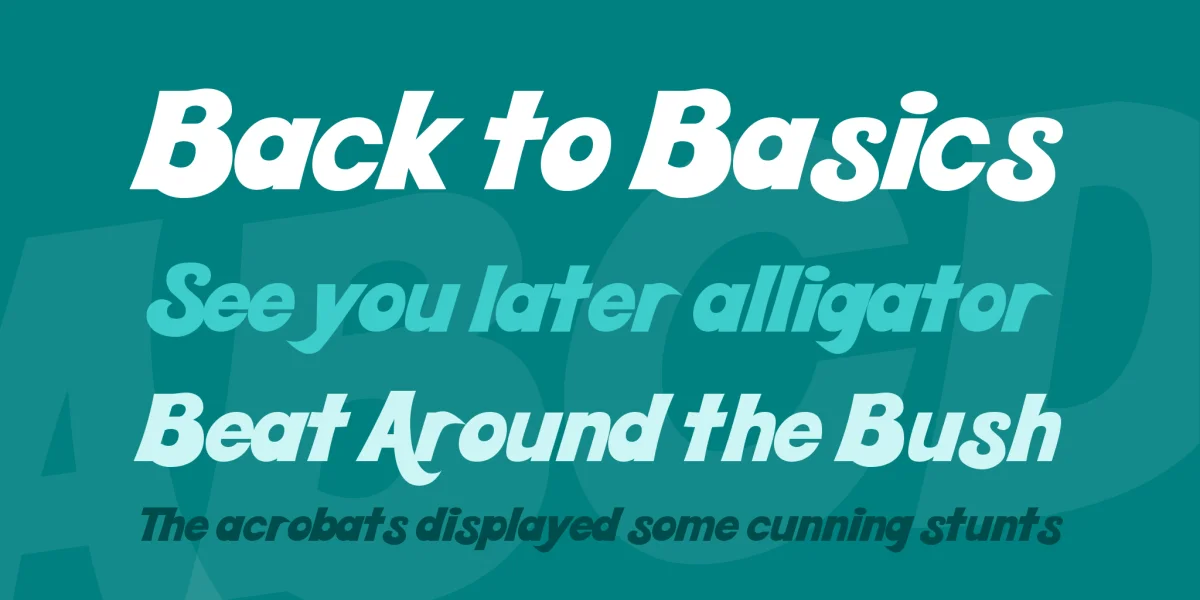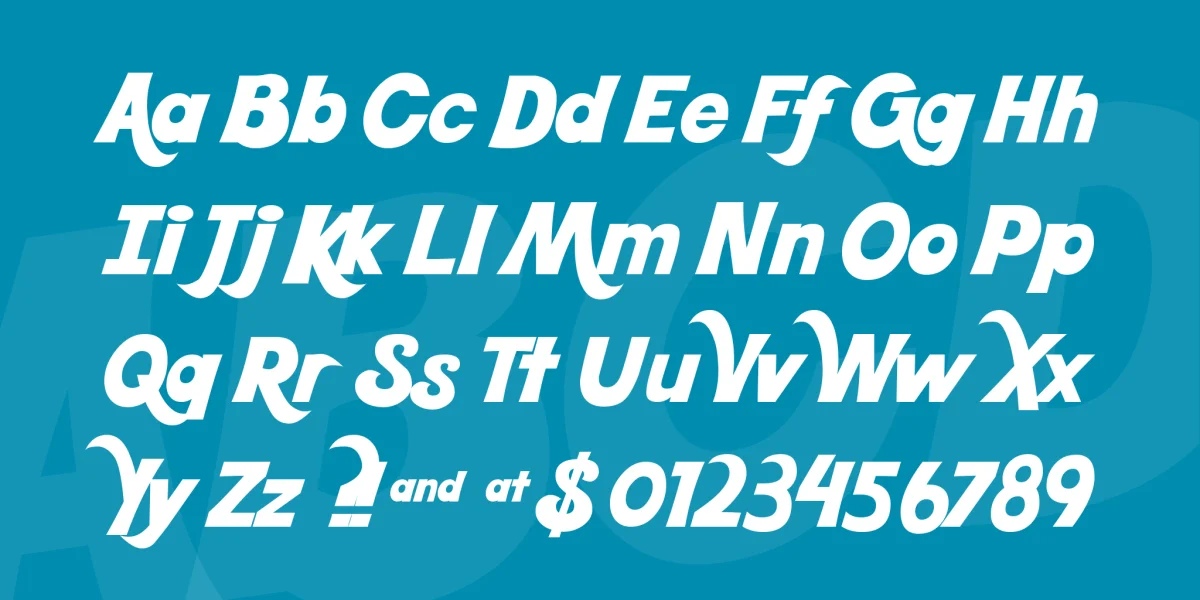
Thanks for downloading "Kool Beans" from Insanitype! Font Design. This font is based on the Kool-Aid logo. It kind of reminds me of a retro surf font or something. I think it would work well for a logo. All the brackets and parenthesis as well as the tilde (the squiggley thing at the top-left of your keyboard) are Kool-Aid Man dingbats. Any other international characters produce a dingbat of yours truly. If you use it, please let me know!